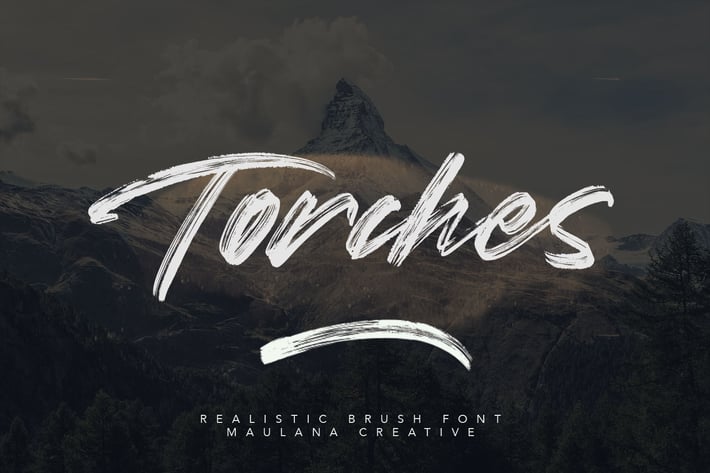
Torches Realistic Brush Font
Give your designs an authentic handcrafted feel. "Torches" is perfectly suited to signature, stationery, logo, typography quotes, magazine or book cover, website header, clothing, branding, packaging design and more.